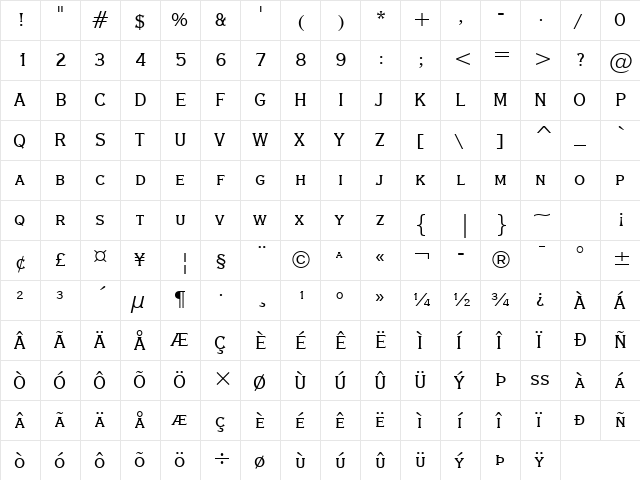
CopprplGoth Cn BT Regular Font Preview
CopprplGoth Cn BT Regular
CopprplGoth Cn BT Regular Font Details
Design Context for CopprplGoth Cn BT Typeface
CopprplGoth Cn BT takes a measured approach to typography — its balanced proportions and neutral character make it a reliable workhorse for both digital and print work.